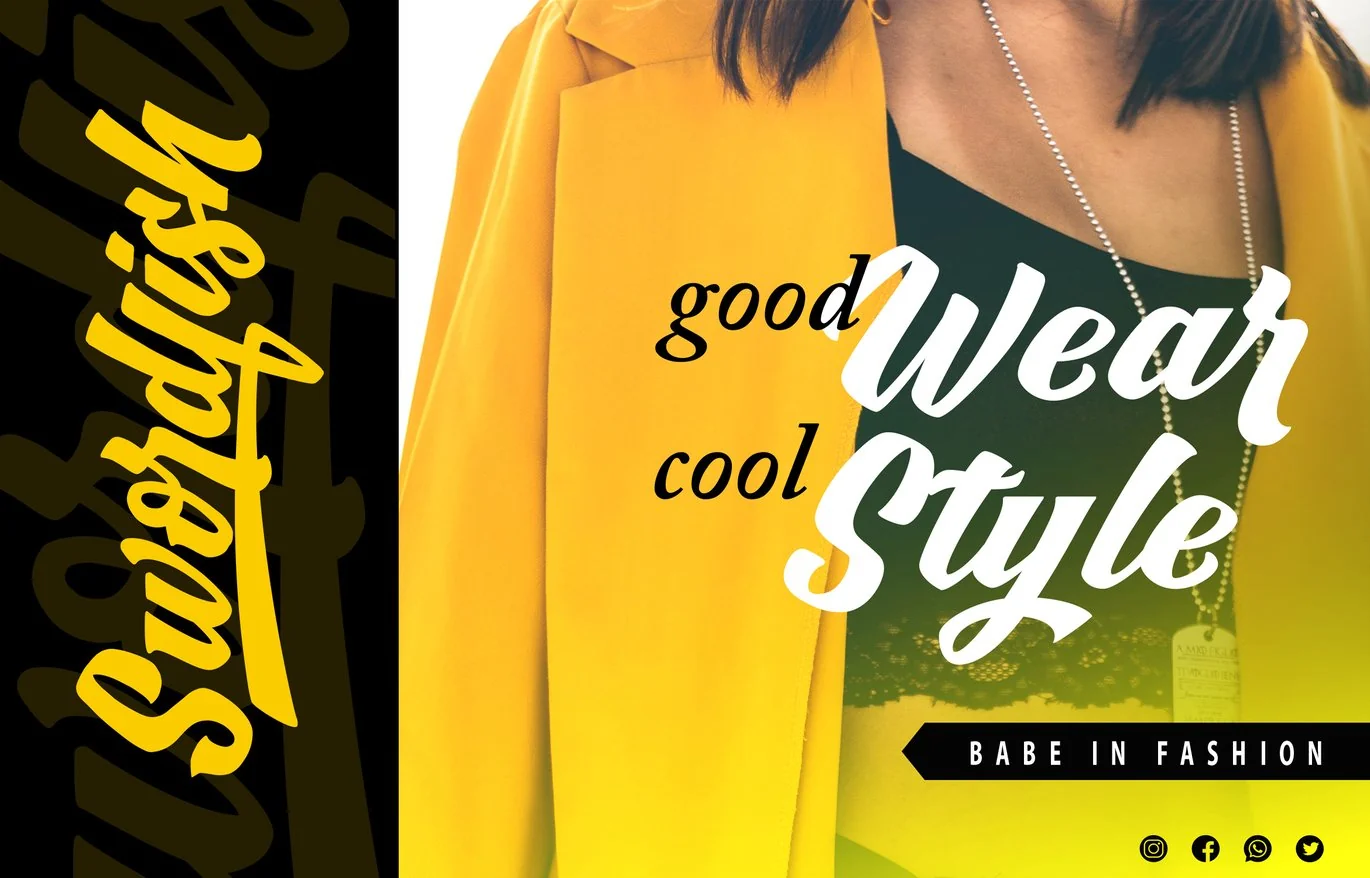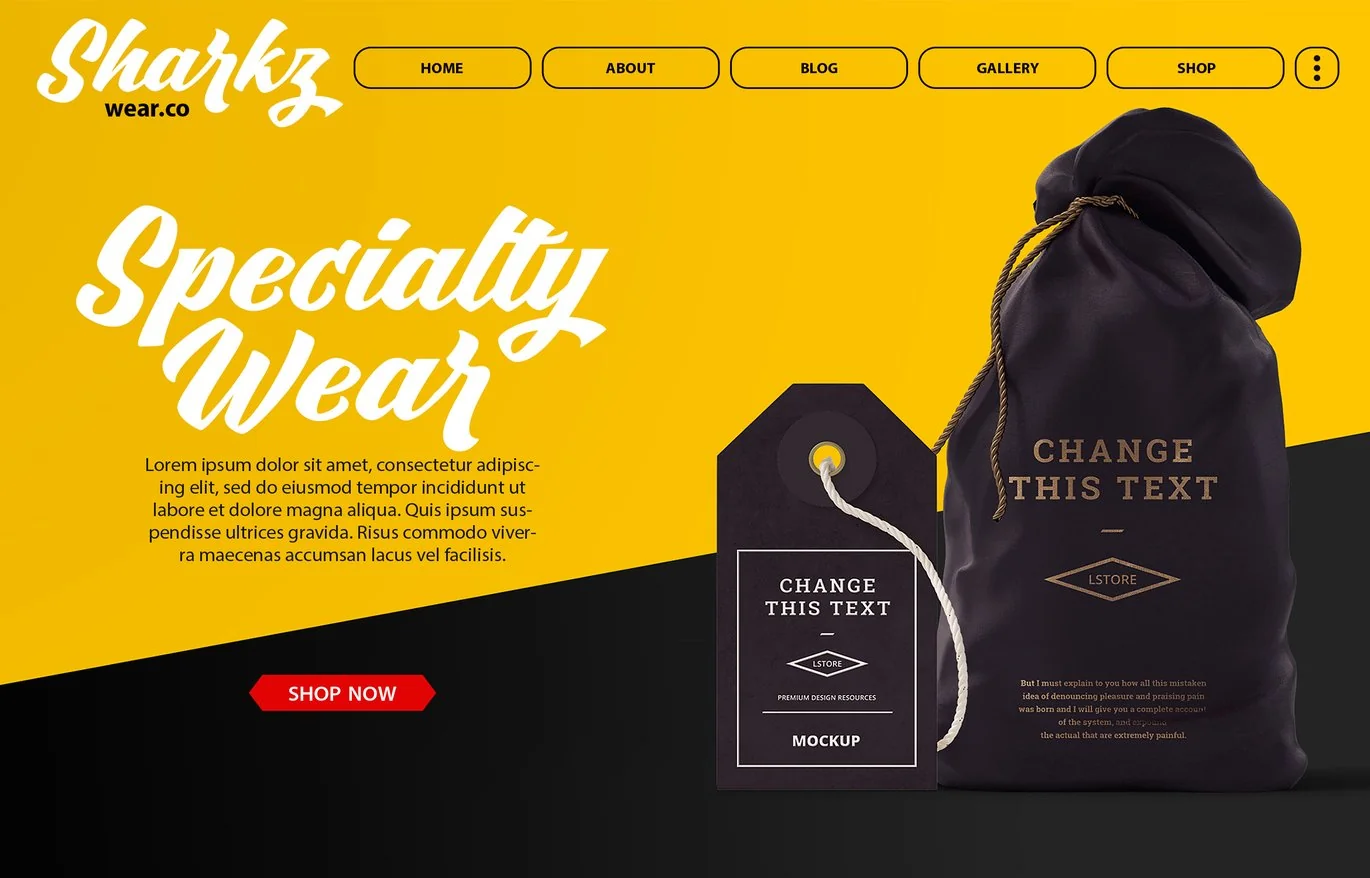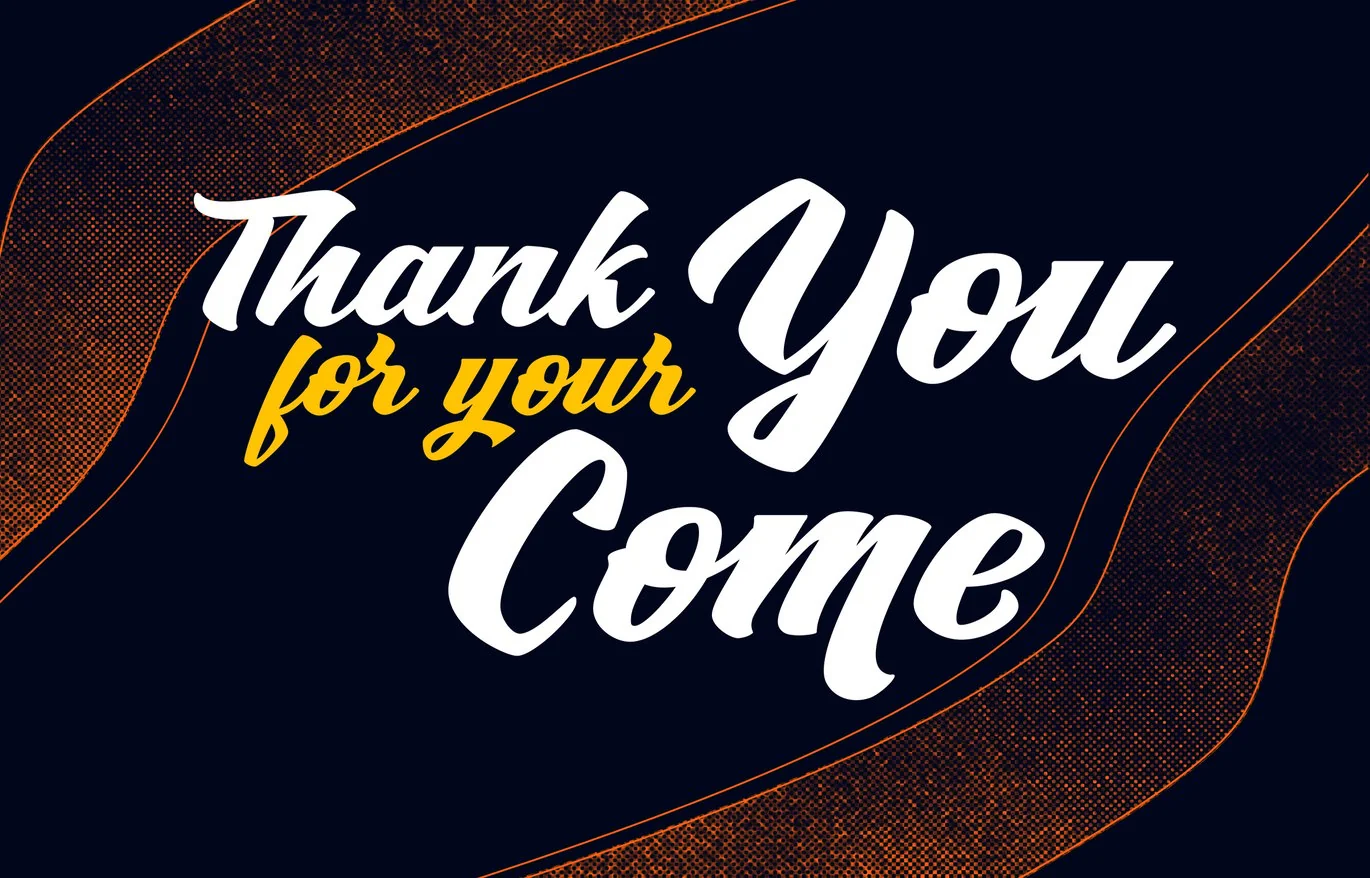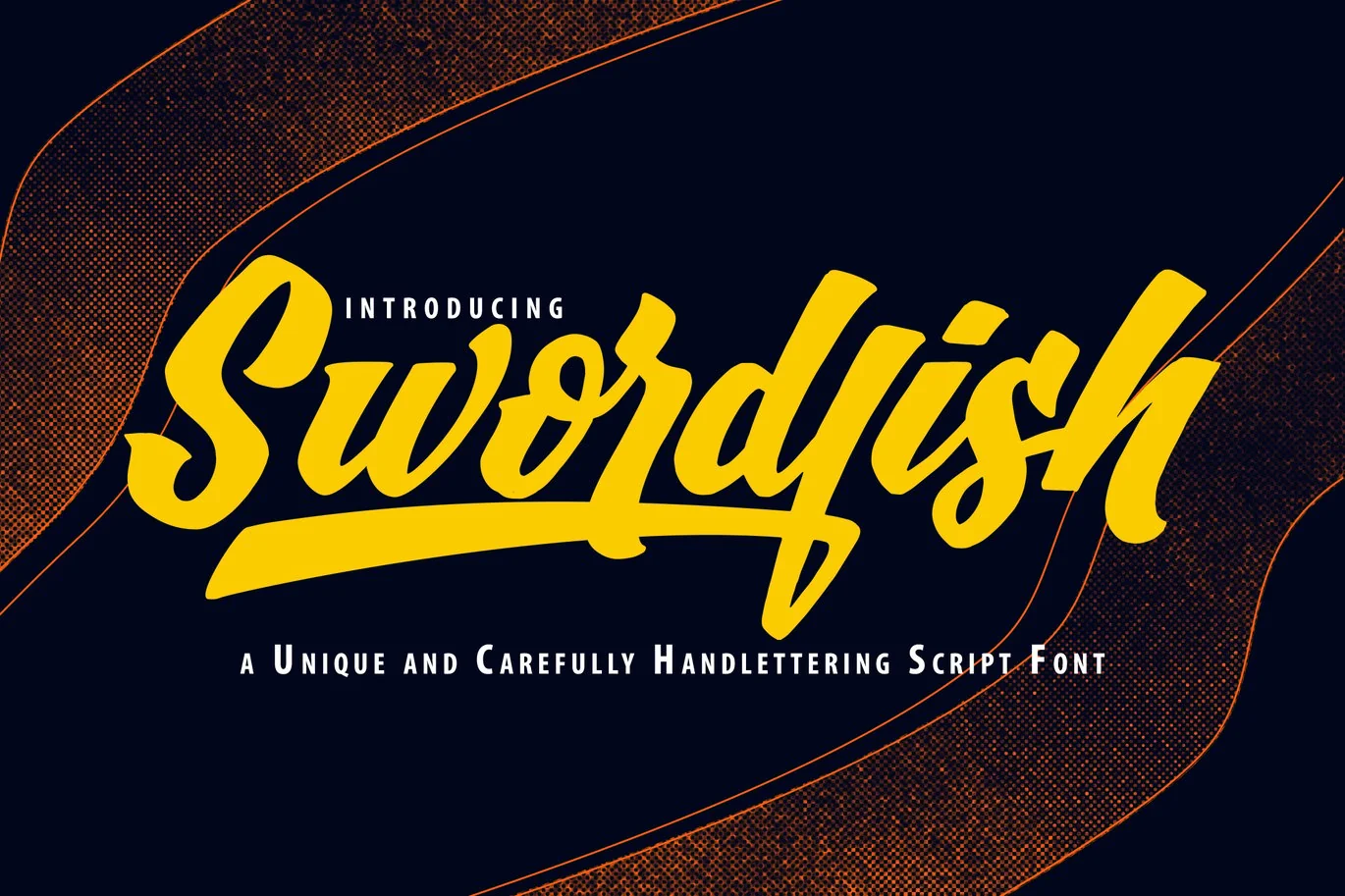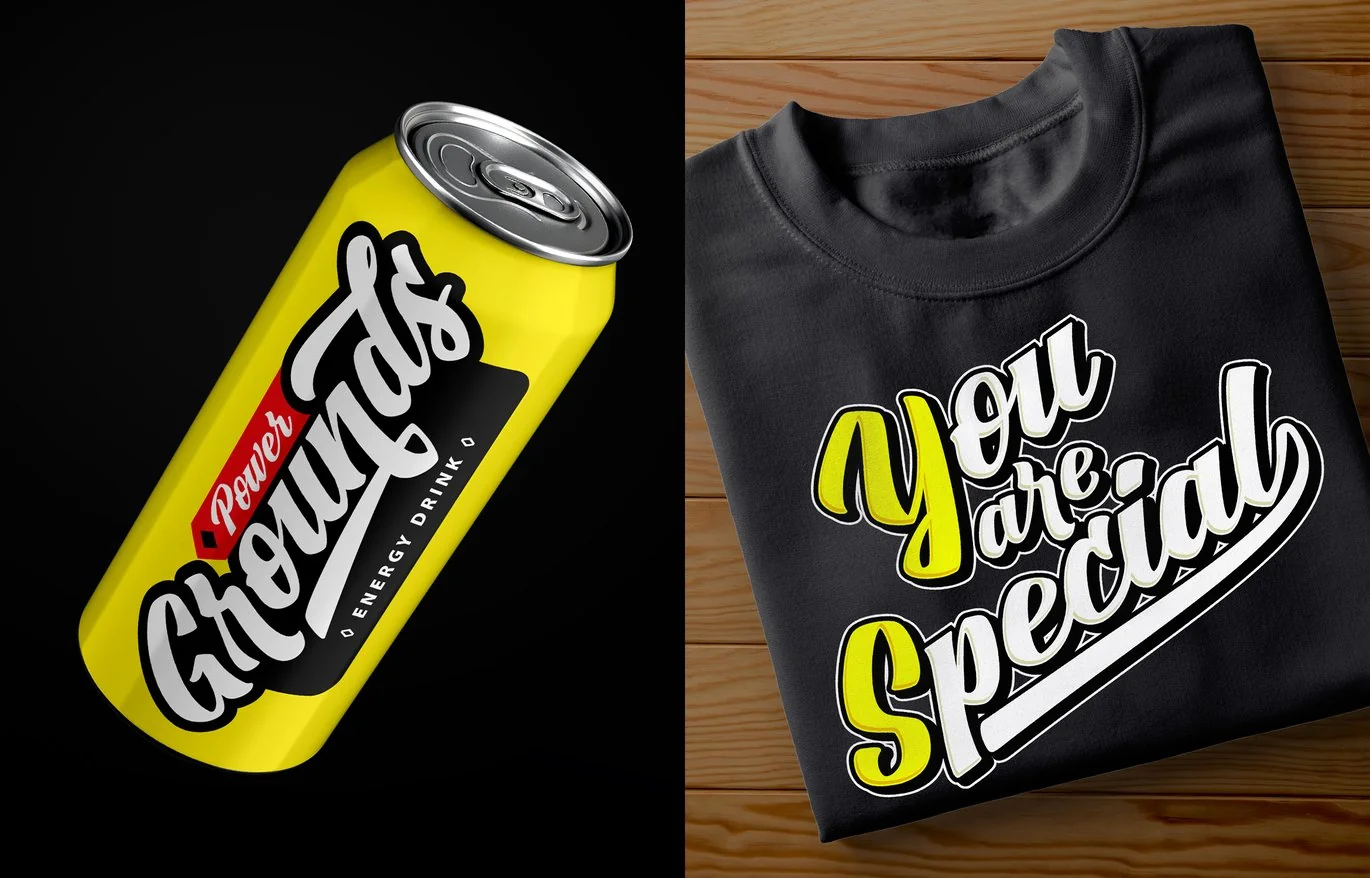
SwordFish | Unique Handlettering Script Font
SwordFish | Unique Handlettering Script Font with a calligraphy style, So beautiful on invitation like greeting cards, branding materials, business cards, quotes, posters, and more!